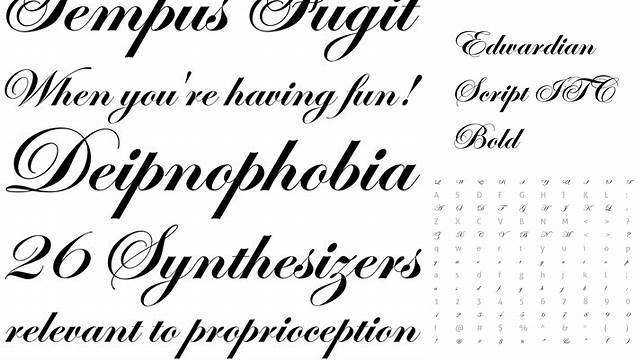
Introduction to Edwardian Script ITC Font
Hey guys! Are you looking to add a touch of classic elegance to your designs? Well, let's talk about the Edwardian Script ITC font. This font is a true gem, known for its graceful curves and sophisticated appearance. It's like the little black dress of fonts – always stylish and perfect for a variety of projects.
Edwardian Script ITC is more than just a font; it's a work of art. Its flowing lines and delicate strokes evoke a sense of timeless beauty, making it a favorite among designers and creatives. But what exactly makes this font so special? Let's dive deeper into its history, characteristics, and uses to understand why it’s such a popular choice. The font's historical roots add a layer of depth and sophistication. It's not just about the way it looks; it's about the story it tells. When you use Edwardian Script ITC, you're not just choosing a font; you're choosing a piece of design history. Its elegance can transform ordinary text into something truly special. Whether you're designing wedding invitations, branding materials, or even personal projects, this font can help you achieve a refined and polished look. It's a versatile tool that can elevate your work and leave a lasting impression on your audience. Plus, the font's aesthetic appeal isn't just about looking pretty; it's about communicating a message of sophistication and quality. When you choose Edwardian Script ITC, you're signaling to your audience that you value attention to detail and have a keen eye for design. This can be particularly important in industries where image and branding are key, such as fashion, beauty, and luxury goods. So, if you're aiming for a design that exudes class and elegance, Edwardian Script ITC is definitely a font to consider. Its timeless appeal and versatility make it a valuable addition to any designer's toolkit. Let’s explore further into its various applications and see how you can make the most of this beautiful typeface. Trust me, once you start using it, you'll wonder how you ever managed without it!
Key Characteristics of Edwardian Script ITC
So, what makes Edwardian Script ITC stand out from the crowd? Let's break down its key characteristics. The first thing you'll notice is its flowing, cursive style. It’s designed to mimic the handwriting of the Edwardian era, giving it a vintage and elegant feel. The letterforms connect beautifully, creating a seamless and graceful appearance. This connectivity is a crucial aspect of its charm, making it ideal for projects where a sense of fluidity and elegance is desired. But it's not just about the cursive style; it's also about the details. Each letter is carefully crafted with delicate strokes and flourishes, adding to its overall sophistication. The font has a certain romantic quality, making it perfect for wedding invitations, love letters, and other sentimental projects. And speaking of details, the serifs play a significant role in the font's aesthetic. They're not just simple lines; they're carefully shaped to complement the curves and loops of the letters. This attention to detail is what sets Edwardian Script ITC apart from other script fonts. The font's weight and contrast also contribute to its elegance. It’s not too heavy, nor too light, striking a perfect balance that makes it easy to read while still maintaining its decorative flair. This balance is essential for ensuring that the font is both beautiful and functional. Edwardian Script ITC isn't just about looks; it's also about readability. While it's a decorative font, it's designed to be legible, even at smaller sizes. This is crucial for ensuring that your message is conveyed clearly. Moreover, the font’s unique personality makes it a versatile choice for various design applications. Whether you're working on a formal invitation or a branding project, Edwardian Script ITC can add a touch of class and sophistication. The font's elegance can also help create a sense of exclusivity and luxury. It’s a great choice for brands that want to convey a sense of heritage and quality. So, when you're looking for a font that combines beauty, elegance, and readability, Edwardian Script ITC is definitely worth considering. Its unique characteristics make it a standout choice for any project that requires a touch of sophistication.
Where to Use Edwardian Script ITC
Now that we know what makes Edwardian Script ITC so special, let's talk about where you can use it. This font is incredibly versatile, but it truly shines in projects that require a touch of elegance and sophistication. Think wedding invitations, greeting cards, and other formal announcements. The graceful curves and delicate strokes of Edwardian Script ITC add a touch of romance and refinement to any occasion. For wedding invitations, this font can set the tone for a classic and timeless celebration. It’s perfect for creating a sense of anticipation and excitement. And it's not just for the main invitation; you can also use it for save-the-dates, thank-you cards, and other wedding-related stationery. But the font's applications extend far beyond weddings. It’s also a fantastic choice for branding and logos, particularly for businesses that want to convey a sense of luxury and sophistication. Imagine a high-end fashion brand or a boutique hotel using Edwardian Script ITC in their logo – it instantly adds a touch of class and exclusivity. This is because the font's elegance aligns well with brands that emphasize quality and heritage. In the world of publishing, Edwardian Script ITC can be used to create beautiful headings and titles. It's perfect for books, magazines, and websites that want to convey a sense of sophistication and style. The font can also be used for pull quotes and other decorative elements, adding visual interest to the page. Plus, its readability ensures that the text remains clear and engaging. Personal projects are another area where Edwardian Script ITC can shine. Whether you're creating personalized stationery, designing a scrapbook, or writing a heartfelt letter, this font can add a special touch. It’s a great way to express your personality and style. The font’s versatility also makes it suitable for a wide range of personal projects, from journaling to crafting. Moreover, consider using it for certificates and awards. The font’s elegant style adds a sense of prestige and formality, making it perfect for recognizing achievements. Edwardian Script ITC can also be used for diplomas and other important documents. So, whether you're designing a wedding invitation, branding a luxury product, or creating a personal project, Edwardian Script ITC is a font that can help you achieve a refined and elegant look. Its versatility and timeless appeal make it a valuable addition to any designer's toolkit.
Alternatives to Edwardian Script ITC
If you're having trouble finding Edwardian Script ITC for free, or you're simply looking for something a little different, don't worry! There are plenty of fantastic alternatives out there that offer a similar level of elegance and sophistication. Exploring these alternatives can also help you discover new favorites and broaden your design horizons. One popular alternative is Great Vibes. This font shares a similar flowing, cursive style with Edwardian Script ITC, making it a great option for wedding invitations and other formal designs. Its graceful letterforms and elegant flourishes add a touch of class to any project. Another excellent choice is Allura. This script font has a slightly more modern feel than Edwardian Script ITC, but it still retains a sense of elegance and sophistication. It’s a versatile font that works well for both print and digital designs. If you're looking for something with a bit more personality, consider * শিখেছি Script*. This font has a whimsical and playful quality, making it a great choice for projects that need a touch of fun. Its unique letterforms and bouncy baseline add character to any design. Another alternative is ন্দা Script. This font has a classic and timeless feel, similar to Edwardian Script ITC. It’s a versatile font that can be used for a wide range of projects, from branding to invitations. ন্দা Script is particularly well-suited for projects that require a touch of elegance and sophistication. For a more contemporary option, check out ্দা Script. This font has a clean and modern design, making it a great choice for digital projects. Its simple letterforms and clear readability make it ideal for websites and apps. When choosing an alternative, consider the overall tone and style of your project. Think about the message you want to convey and the audience you're trying to reach. Experiment with different fonts to see what works best for your design. Remember, the goal is to find a font that complements your project and enhances its visual appeal. Don't be afraid to try something new! Sometimes, the best font is one you've never used before. Exploring different options can lead to unexpected discoveries and help you create truly unique designs. So, if you can't find Edwardian Script ITC, or you simply want to explore other options, there are plenty of alternatives to choose from. Each of these fonts offers its own unique charm and can help you achieve a similar level of elegance and sophistication.
So, there you have it! Edwardian Script ITC is a beautiful and elegant font that can add a touch of class to any project. While finding it for free might take some effort, the results are well worth it. And if you can’t find it, there are plenty of fantastic alternatives out there. Remember, the key to good design is choosing the right font for the job. Edwardian Script ITC is a great option for projects that require a touch of sophistication and elegance, but it’s not the only option. Exploring different fonts and experimenting with different styles can help you create truly unique and memorable designs. Whether you’re designing wedding invitations, branding a luxury product, or creating a personal project, the right font can make all the difference. Take the time to explore your options, consider the overall tone and style of your project, and choose a font that complements your vision. And most importantly, have fun with it! Design is a creative process, so enjoy the journey and let your imagination run wild. With the right tools and a little bit of creativity, you can create stunning designs that capture the essence of elegance and sophistication. So go ahead, download some fonts, experiment with different styles, and create something amazing! Whether you end up using Edwardian Script ITC or one of its many alternatives, the possibilities are endless. The world of typography is vast and exciting, so dive in and discover the perfect font for your next project. And remember, the best design is one that speaks to the heart and leaves a lasting impression.